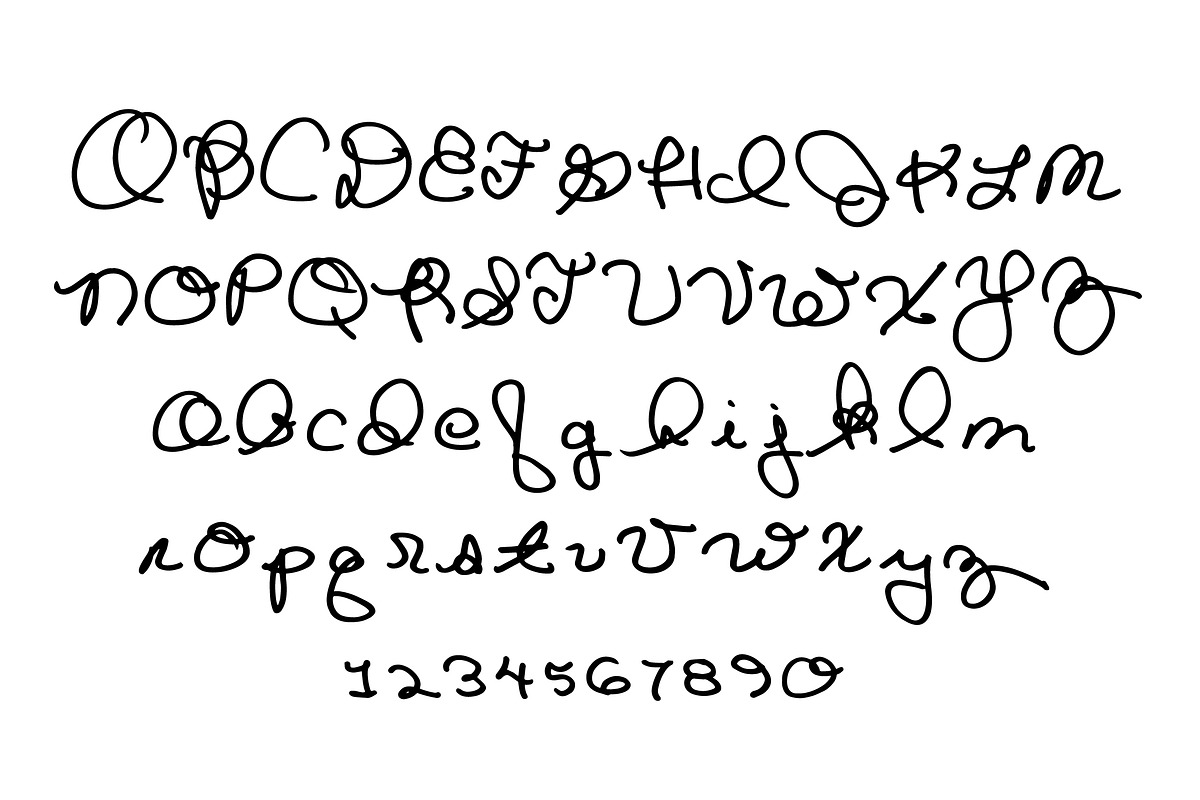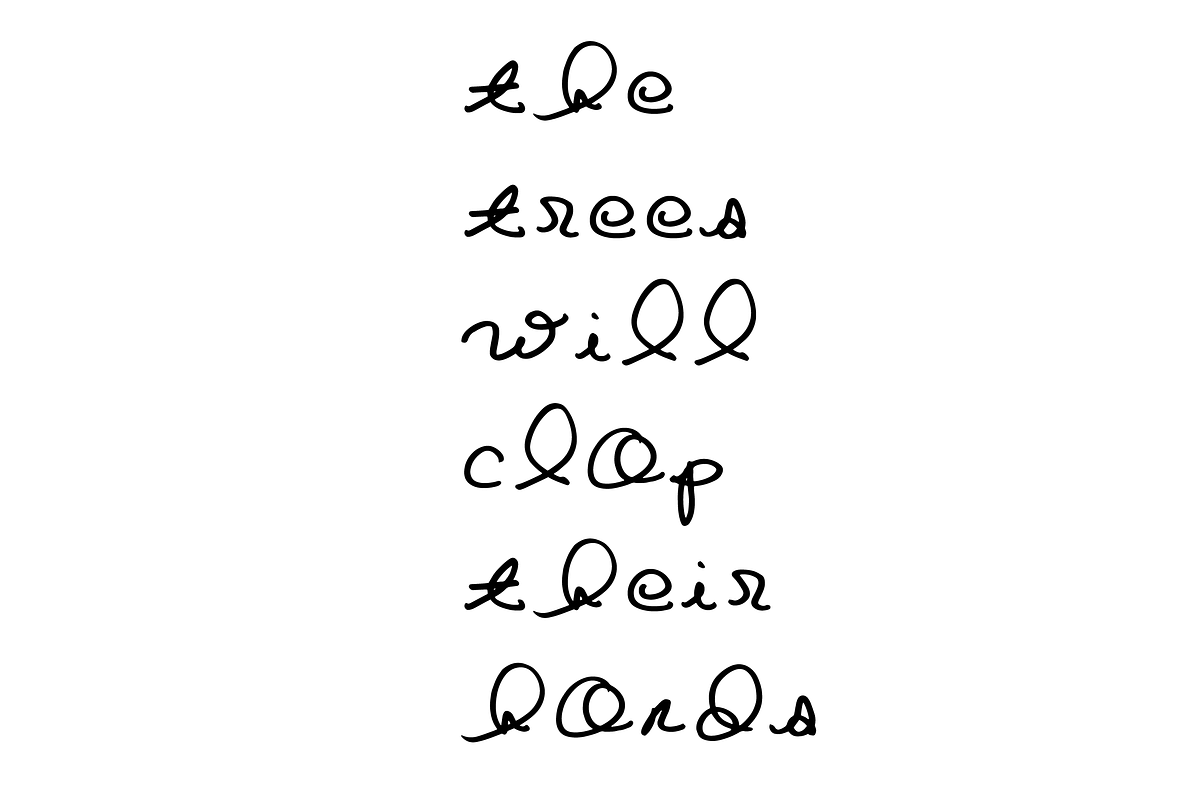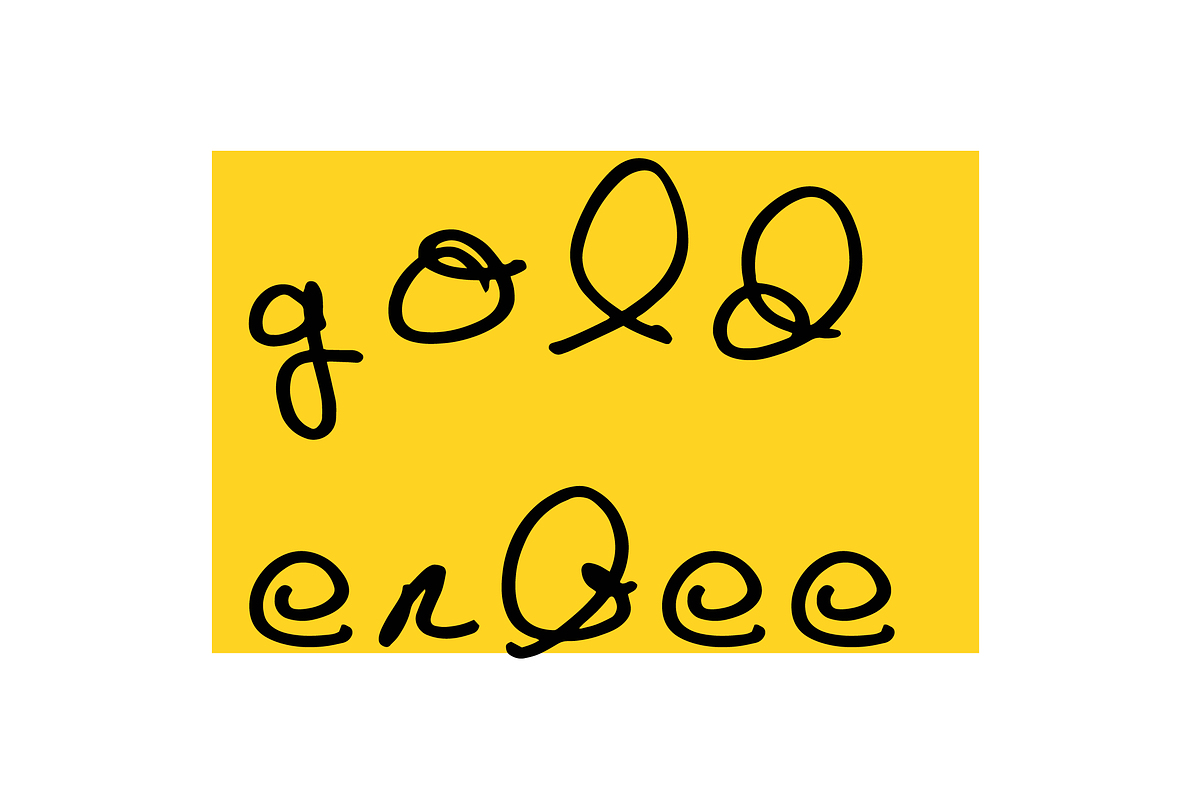
Goldenbee Typeface
Goldenbee Typeface by Bonnet Design is a font selected for branding, posters, packaging, typography.
- Goldenbee includes upper and lowercase letters, numbers, and punctuation.
Why Goldenbee Typeface is worth a look
Goldenbee Typeface by Bonnet Design fits naturally into Branding, posters, packaging, typography.